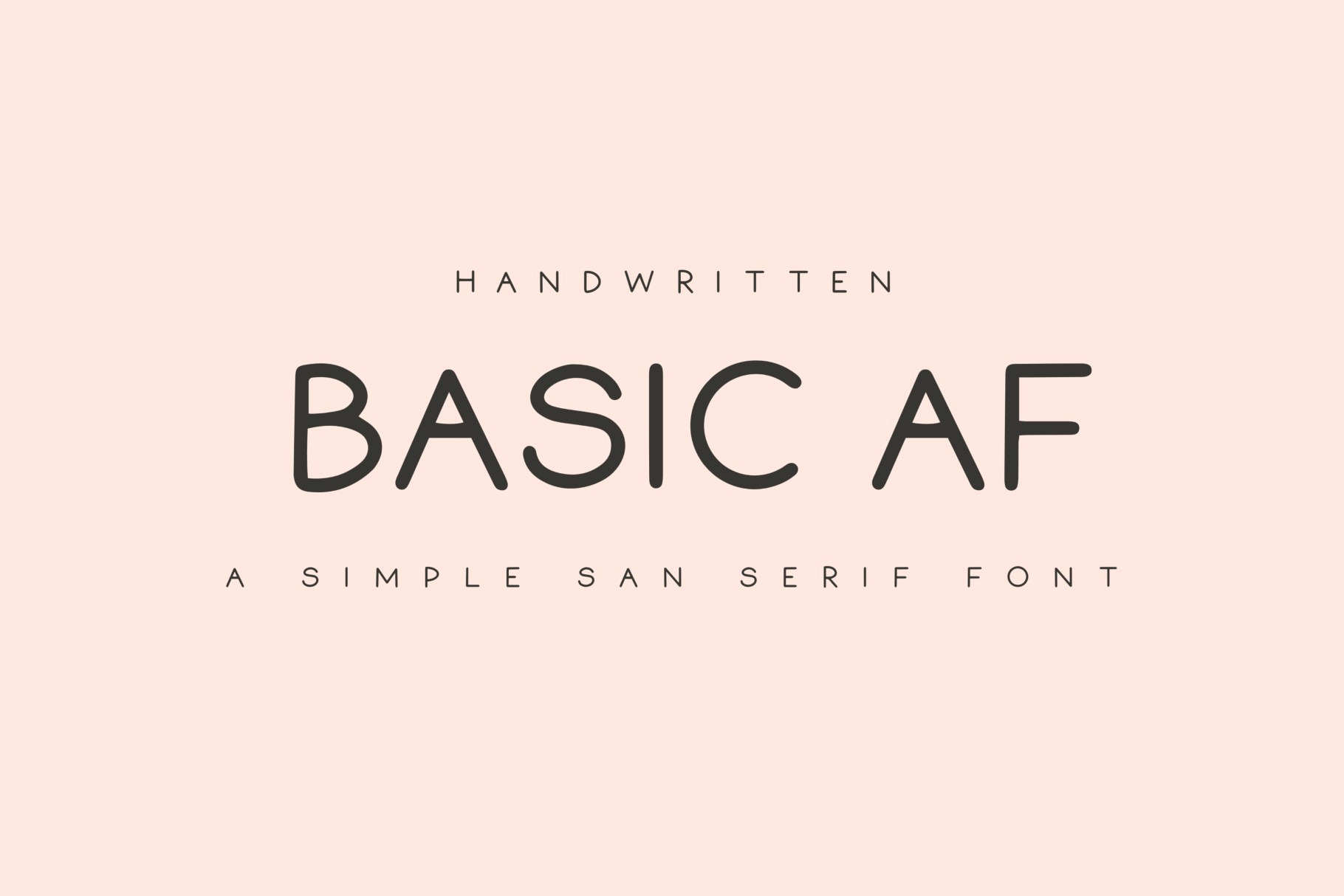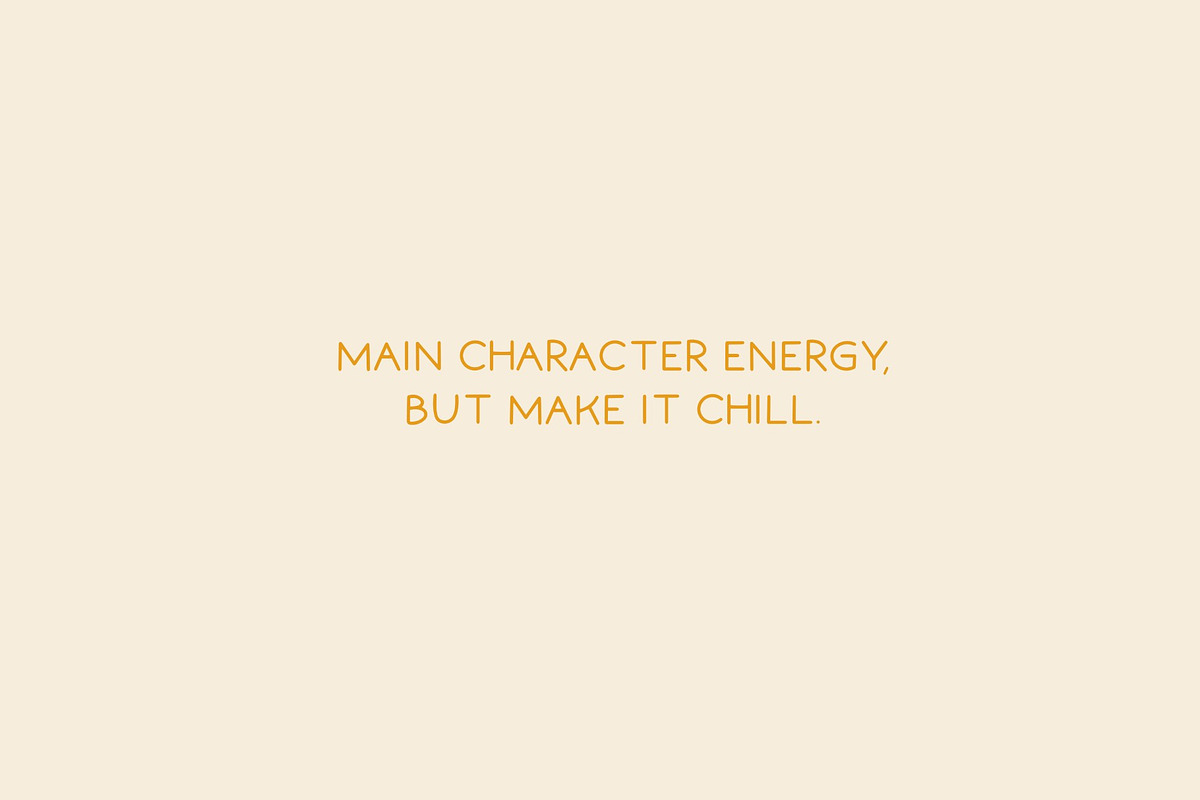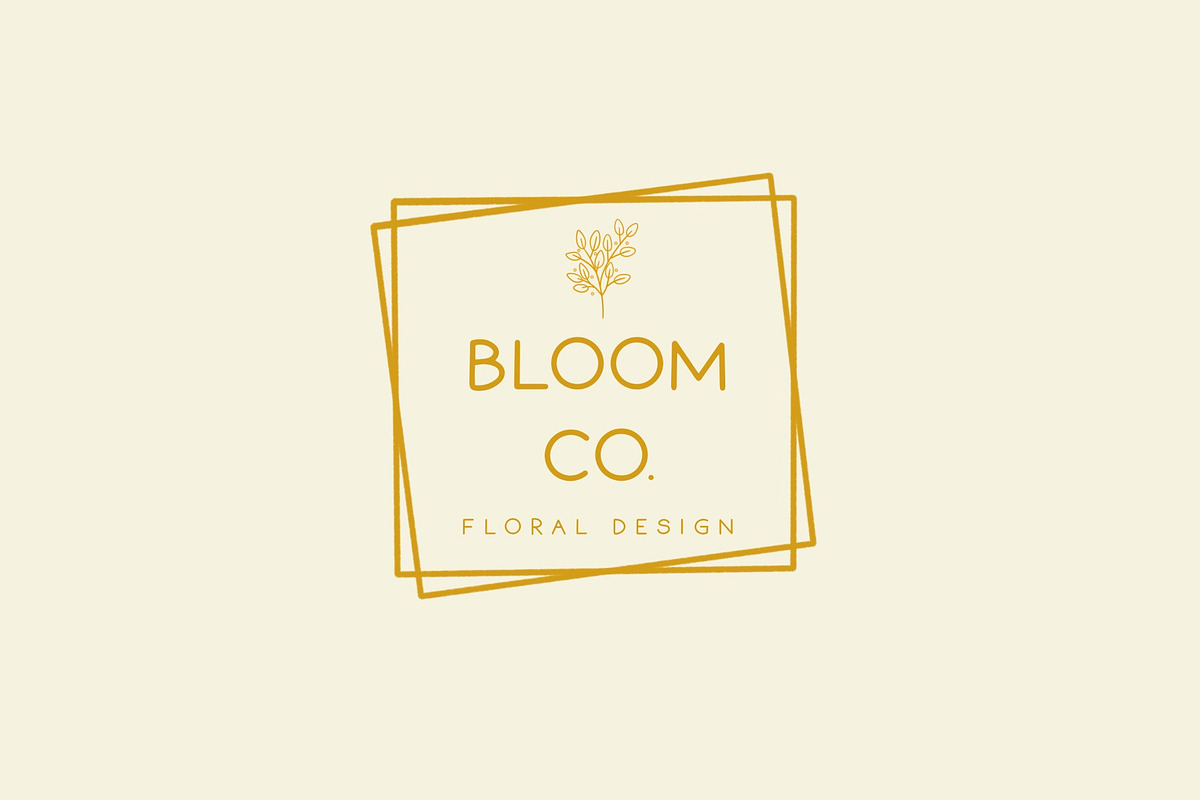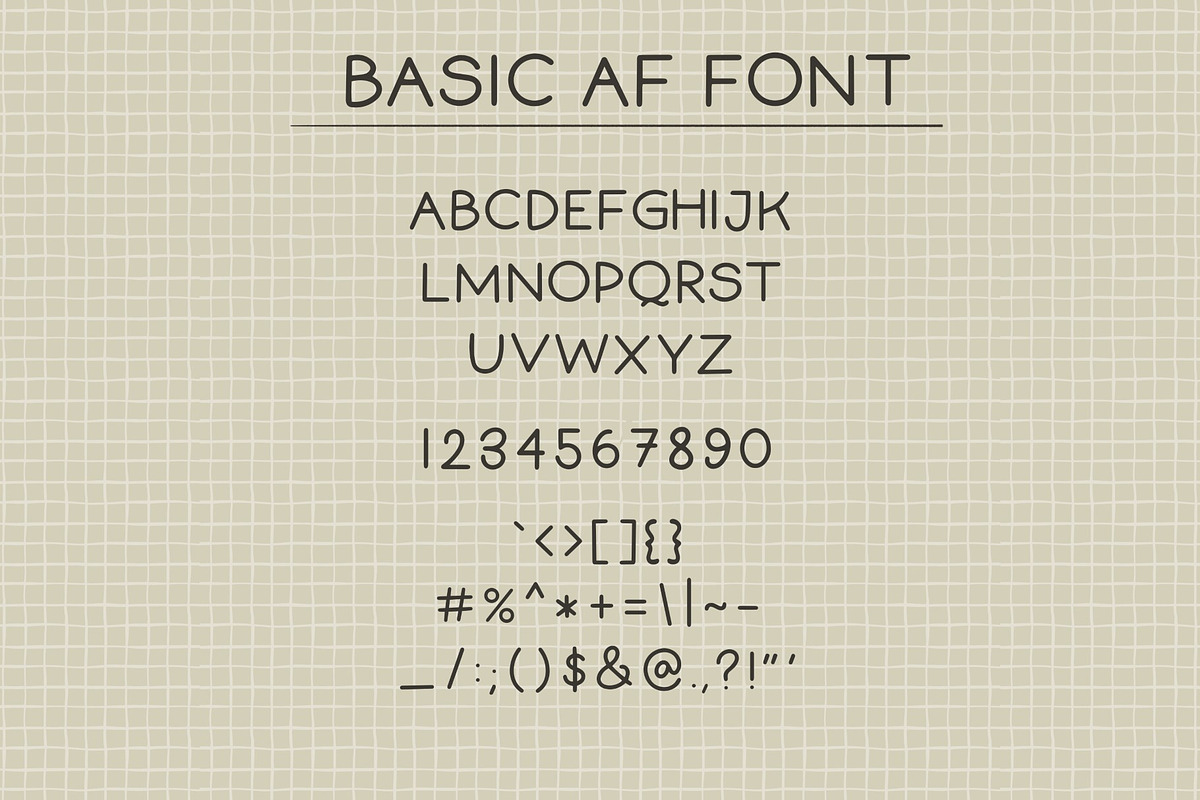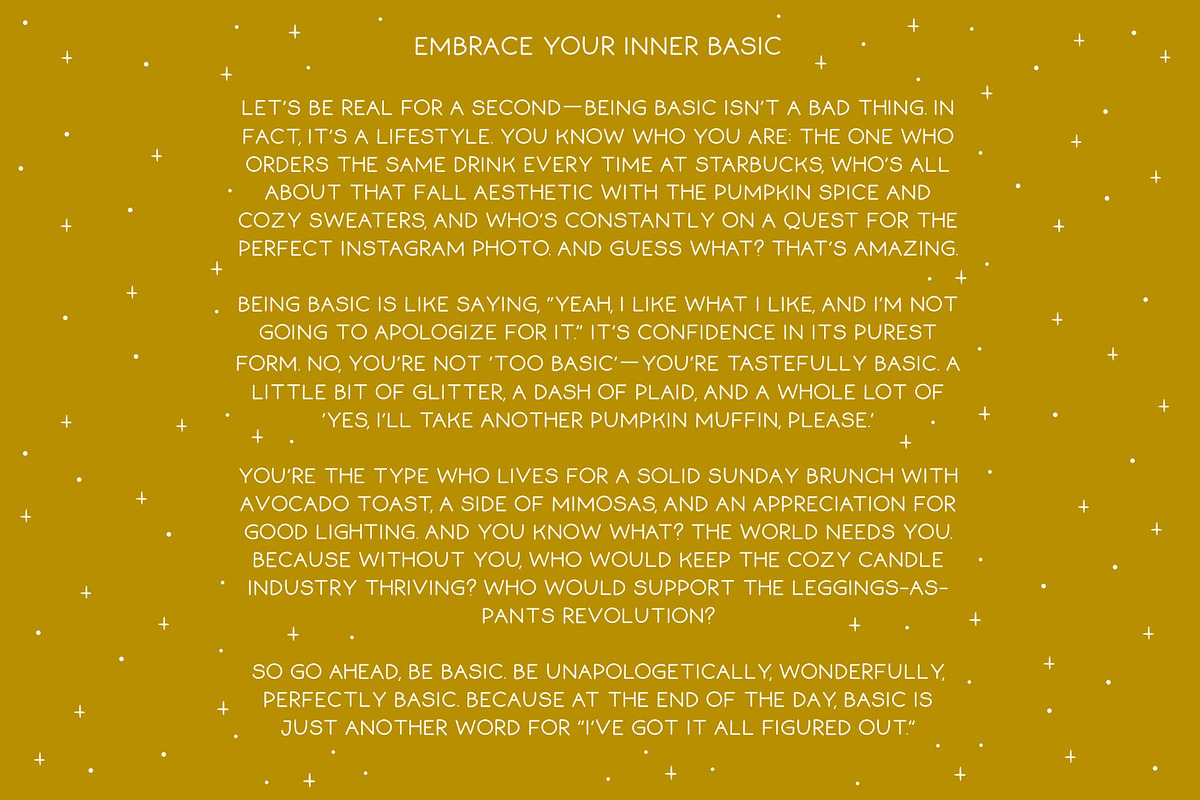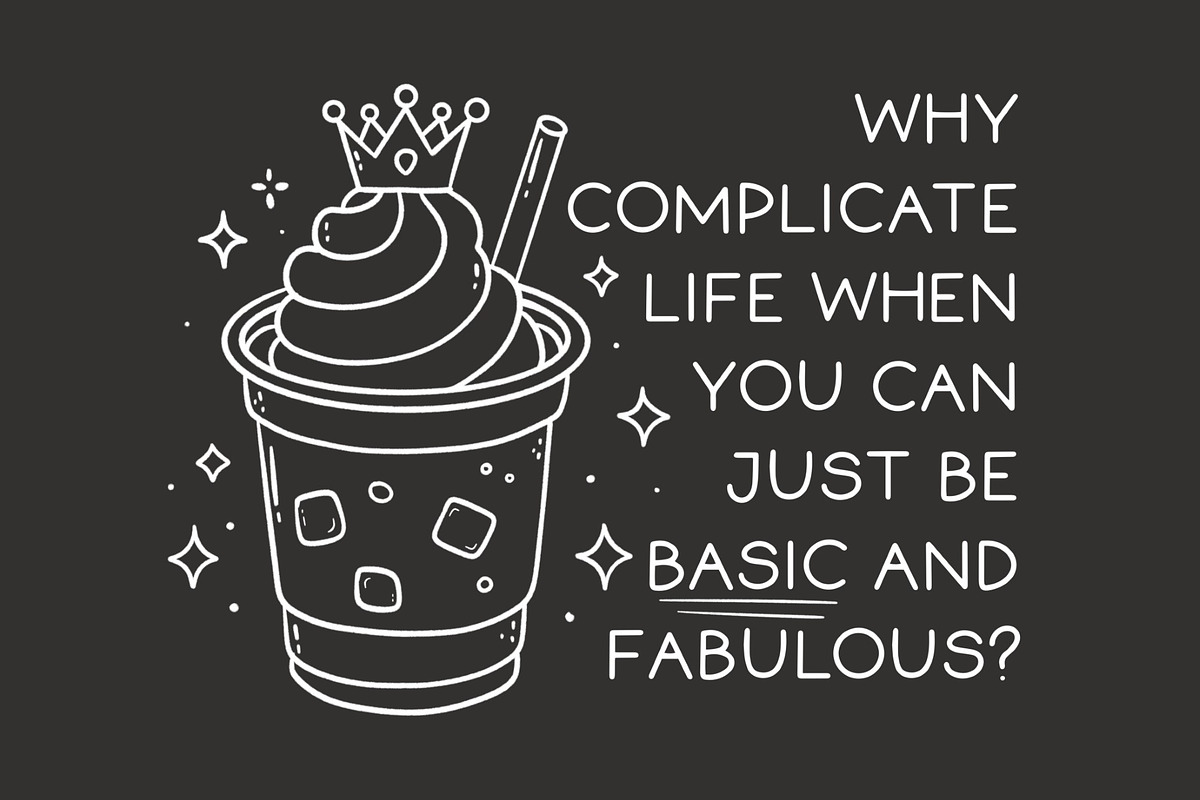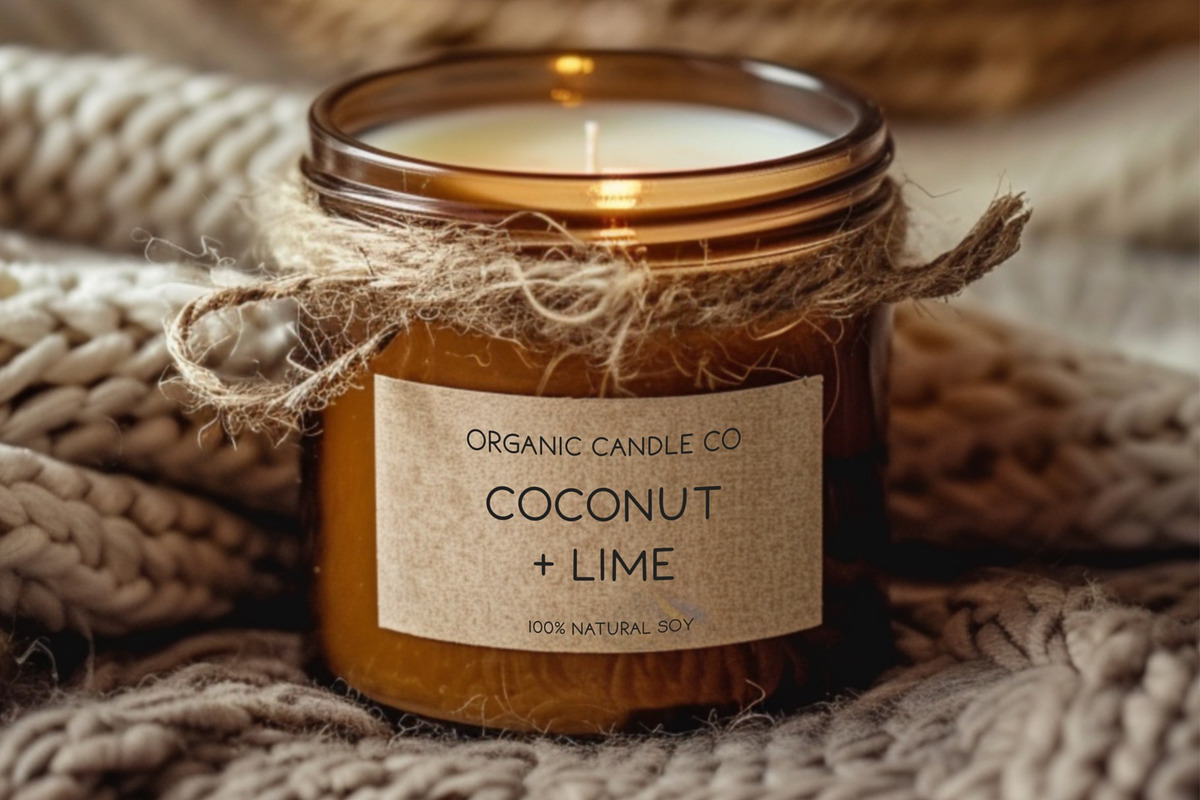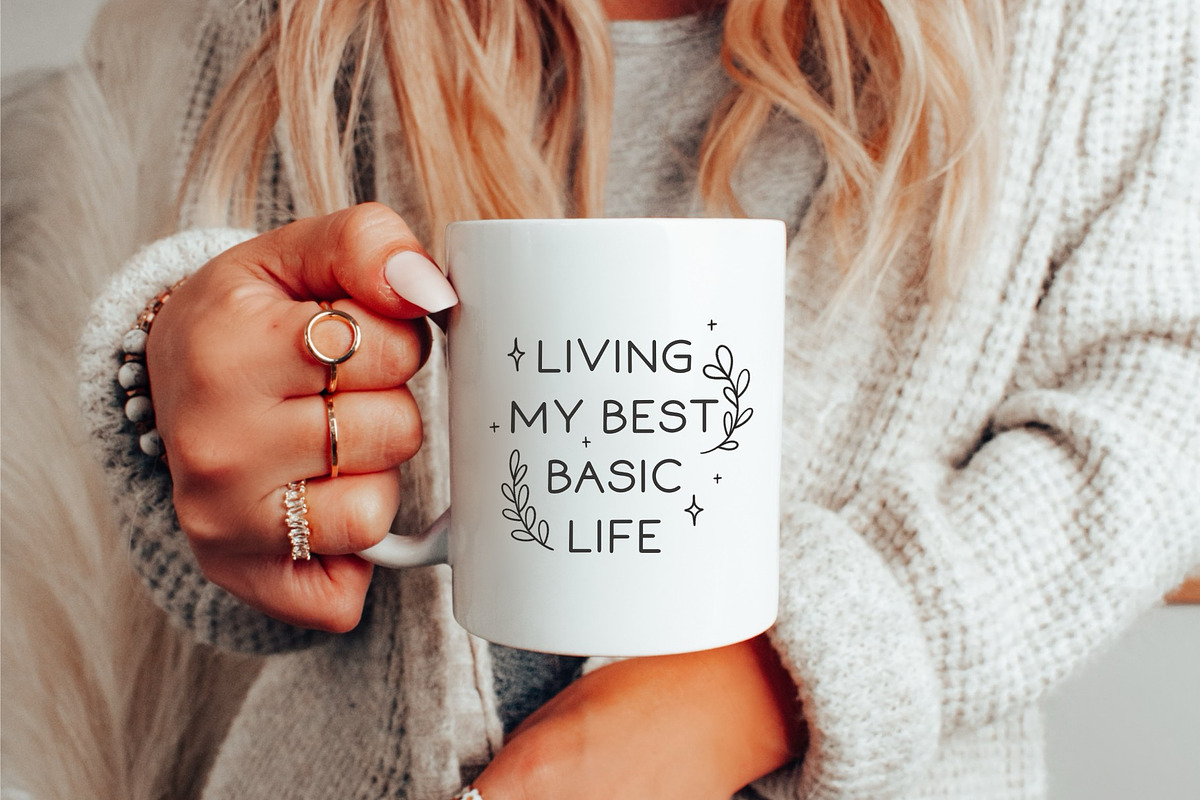
Basic AF Font: Handwritten San Serif
Basic AF Font: Because Extra is Overrated
Sassy, playful, and straight to the point—Basic AF is the font equivalent of your favorite go-to outfit: simple, stylish, and always on point. This all-caps sans serif font doesn’t try too hard, and that’s exactly the point. It’s handwritten with a minimalist vibe, but with just enough personality to make it stand out from the crowd.
Perfect for taglines, headers, and those moments when you just need your words to pop without all the drama, Basic AF is here for your everyday design needs. It’s not fussy. It’s not complicated. It’s just basic. But, like, in the best way.
Basic AF includes uppercase font, basic punctuation and numbers. Basic AF Font is a go-to for everything from social media graphics, mugs, and t-shirts to stickers, logos, and web design. Whether you’re crafting bold taglines, chic printables, or sassy greeting cards, this font keeps it simple, stylish, and versatile!